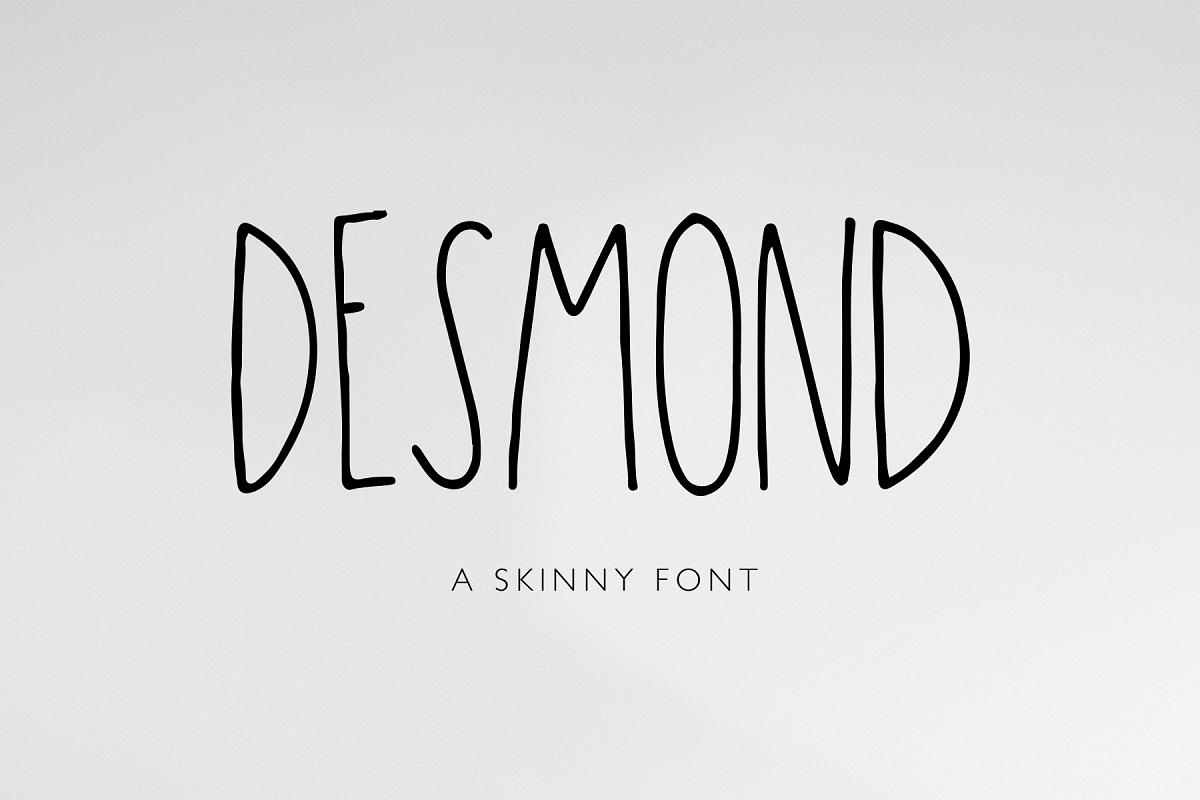
Desmond
Desmond is a tall & skinny all uppercase font created by OTSS Includes Uppercase standard letters and alternate uppercase letters for infinite mix and matching!
there is no bold option available and this is a very thin font.
Desmond